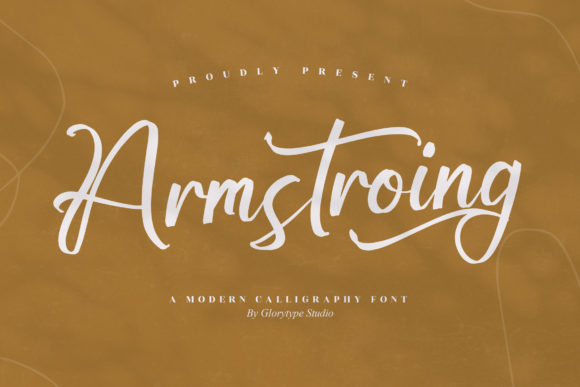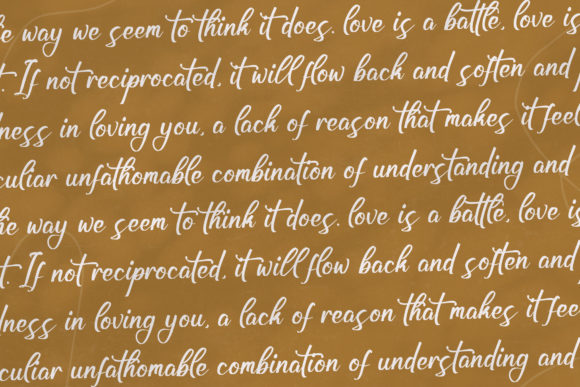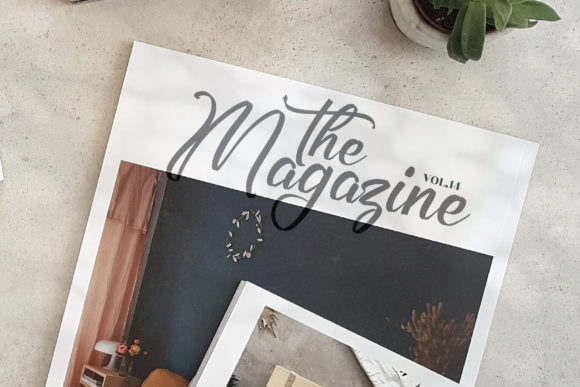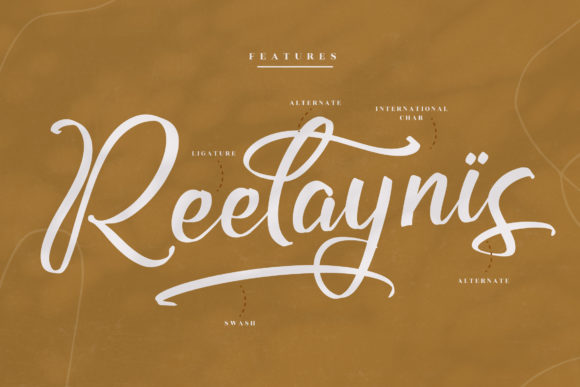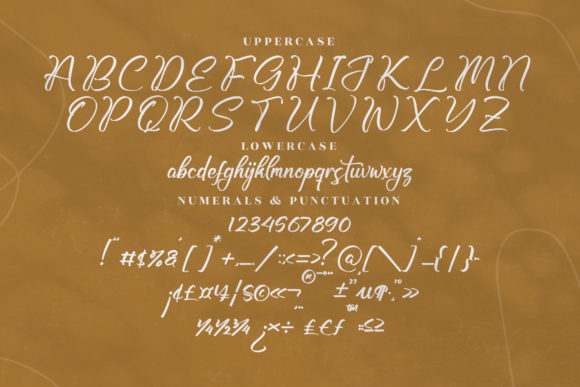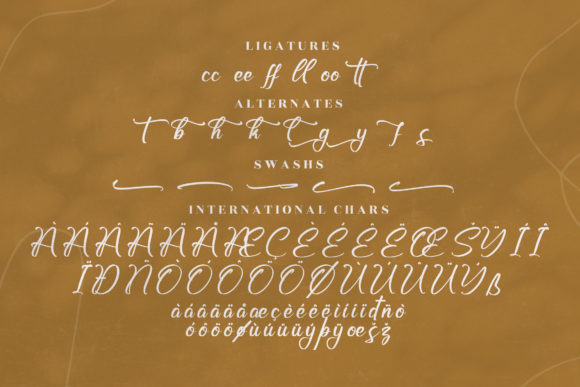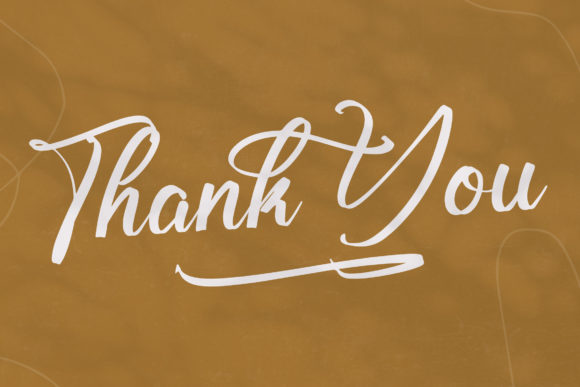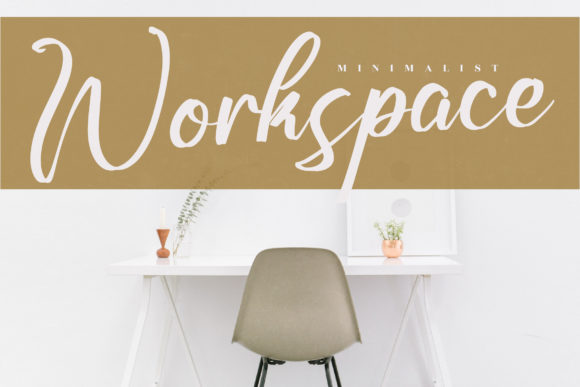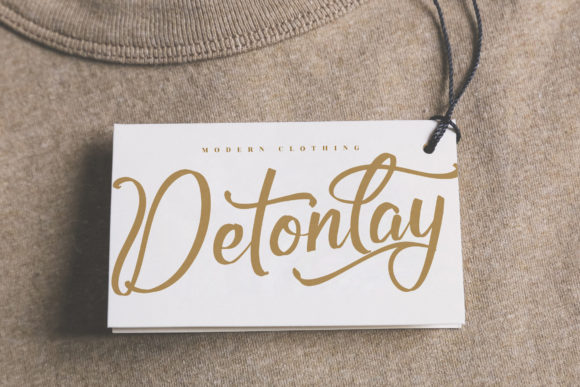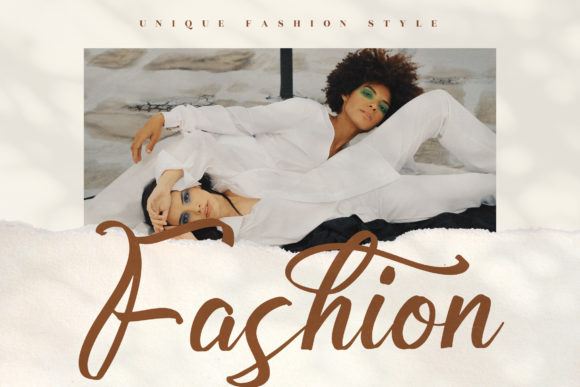
Armstroing Font
Armstroing is a carefully crafted handwritten font that embodies a gentle and understated charm. Meticulously designed with precision and attention to detail, Armstroing promises to deliver exceptional results in your creative endeavors. Infused with a touch of elegance and class, this font becomes a versatile tool for enhancing the visual appeal of your design projects.
The refined strokes and delicate curves of Armstroing create a harmonious balance, exuding a sense of sophistication and subtlety that can uplift the aesthetics of any composition. Whether you’re working on logos, branding, invitations, or other design ventures, Armstroing’s unassuming yet impactful presence has the power to elevate your work to new levels of visual refinement.
One of the standout qualities of Armstroing is its versatility, seamlessly complementing a wide range of design themes and styles. Its timeless character ensures that it remains relevant and captivating, making it an ideal choice for designers who seek to infuse their creations with an aura of grace and approachability.
A notable feature of Armstroing is its PUA encoding, granting you effortless access to an array of glyphs and swashes. This empowers you to customize your designs with intricate ligatures and embellishments, infusing your work with a personalized touch that sets it apart. With Armstroing, you have the creative freedom to enhance every facet of your design projects.
By incorporating Armstroing into your work, you seize the opportunity to infuse your designs with a touch of handwritten elegance. Its ability to effortlessly blend sweetness and sophistication positions it as a valuable asset for creators who want to add a subtle yet impactful element to their projects.
Beyond being just a font, Armstroing serves as a versatile instrument that empowers you to express your creativity and establish a deeper connection with your audience. Its gentle and subtle handwritten style, coupled with the convenience of PUA-encoded glyphs and swashes, makes it a remarkable tool for enhancing a variety of design projects. With Armstroing, you can confidently create designs that leave a lasting impression of grace and class, resonating with audiences who appreciate the finer details of refined aesthetics.